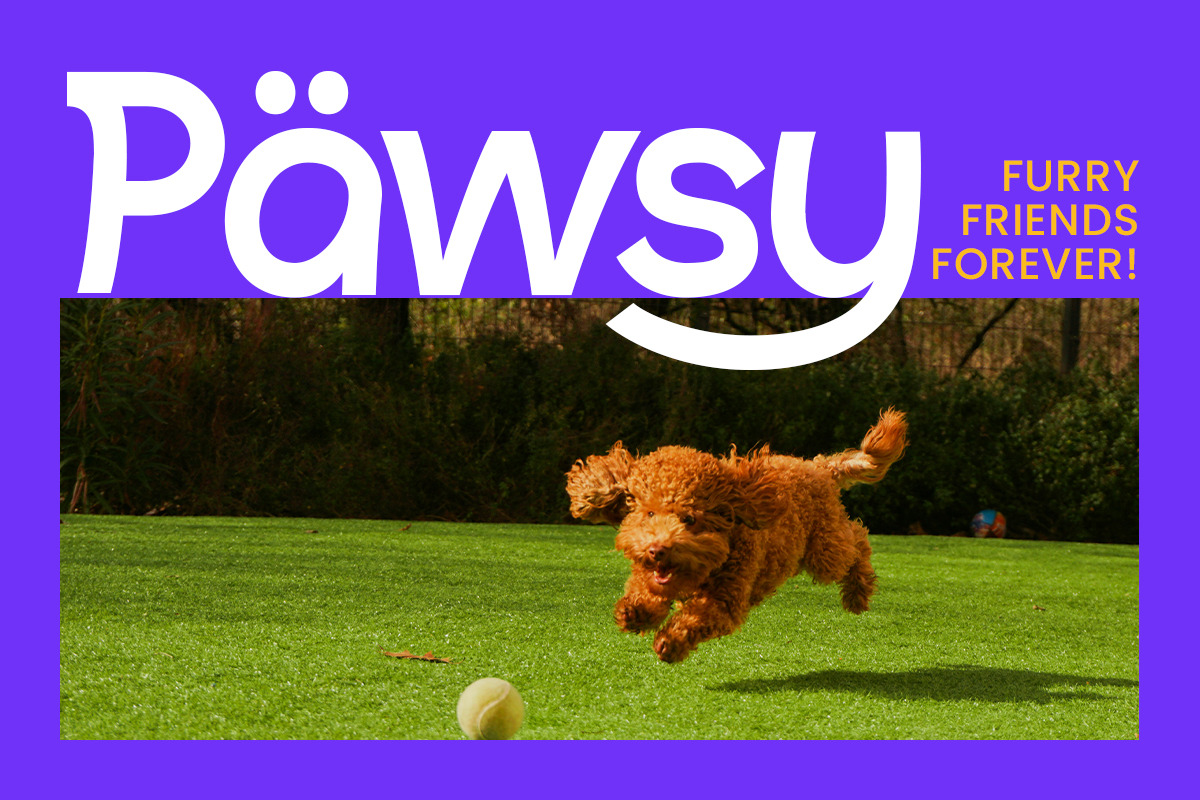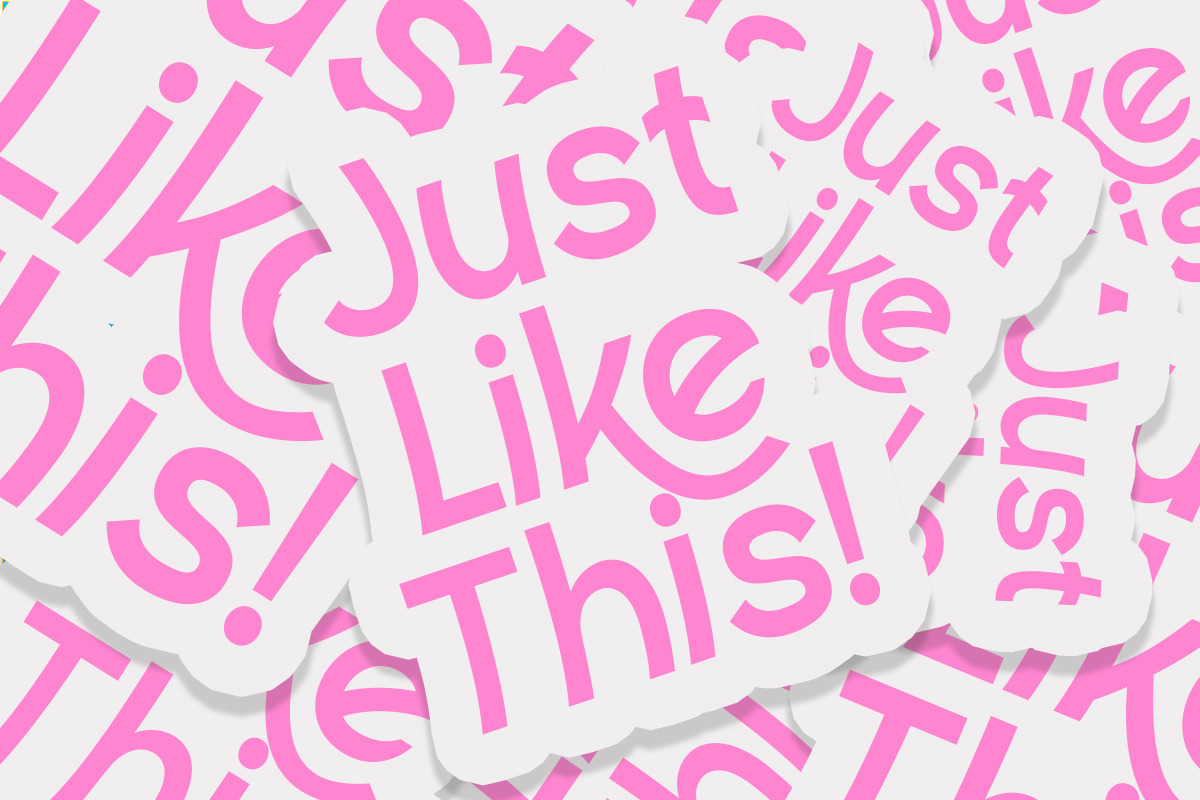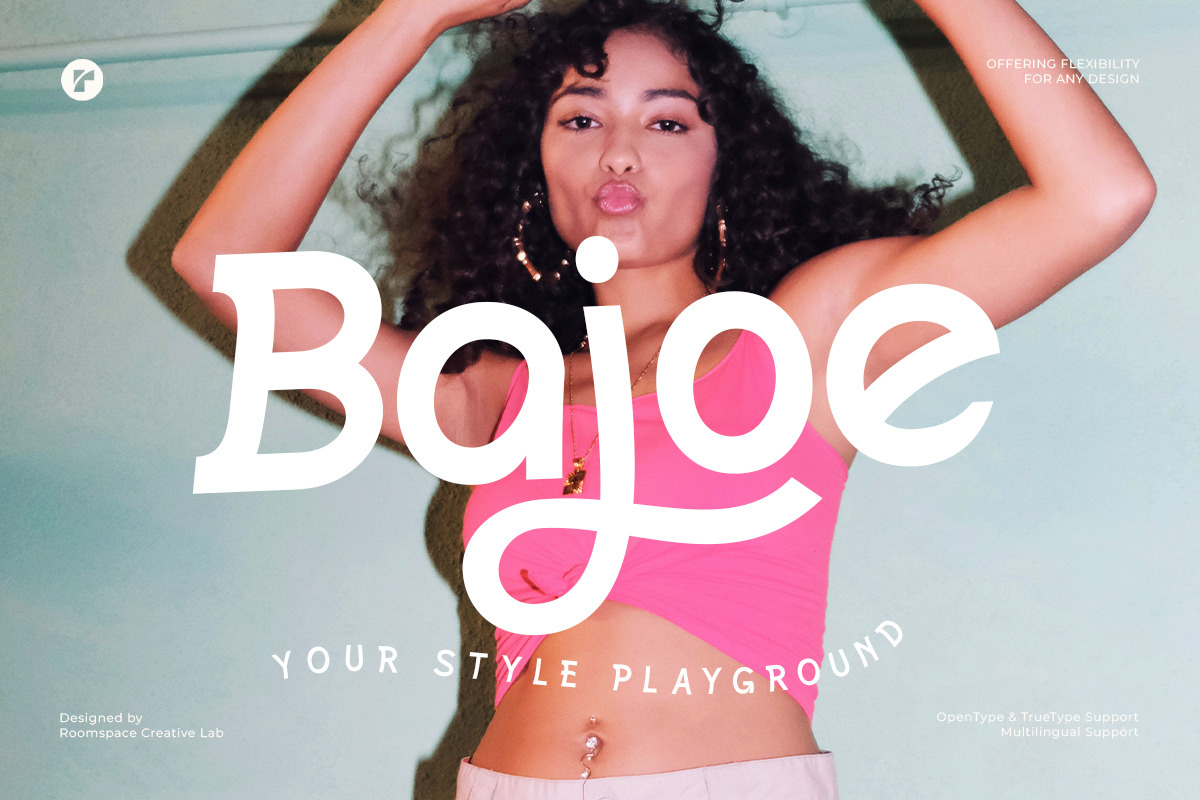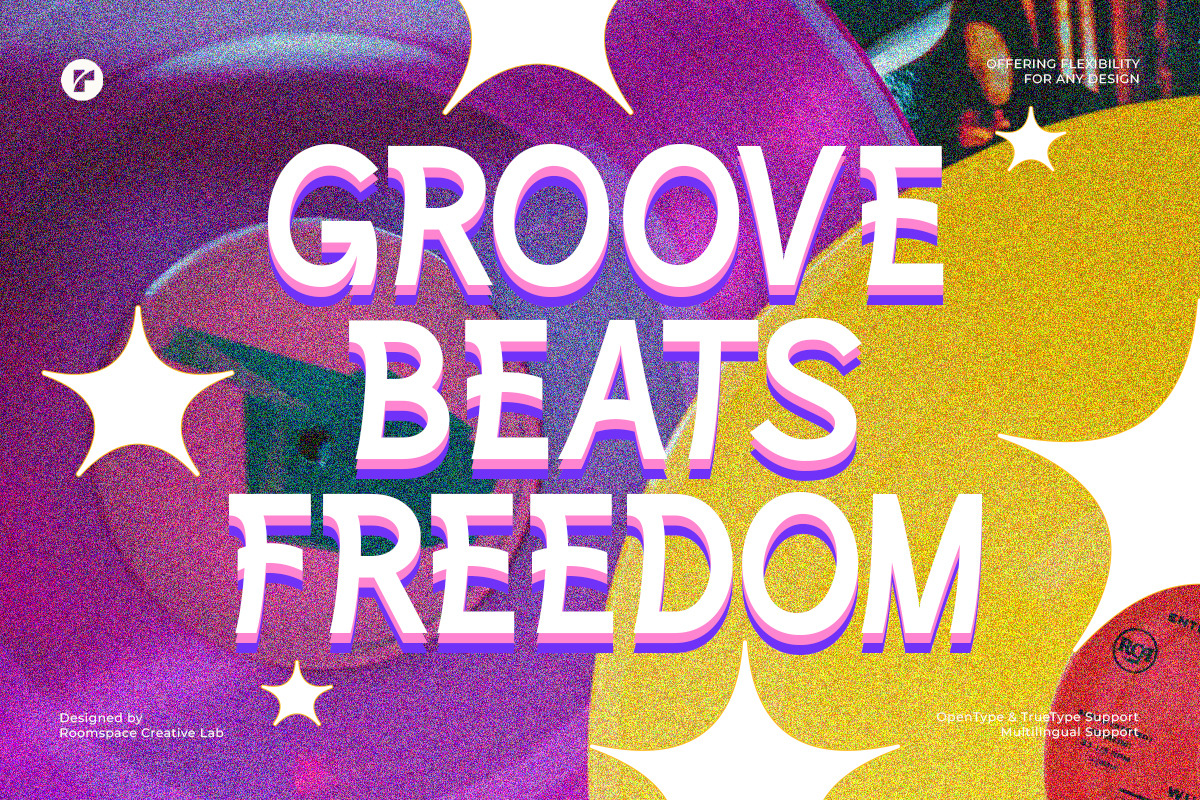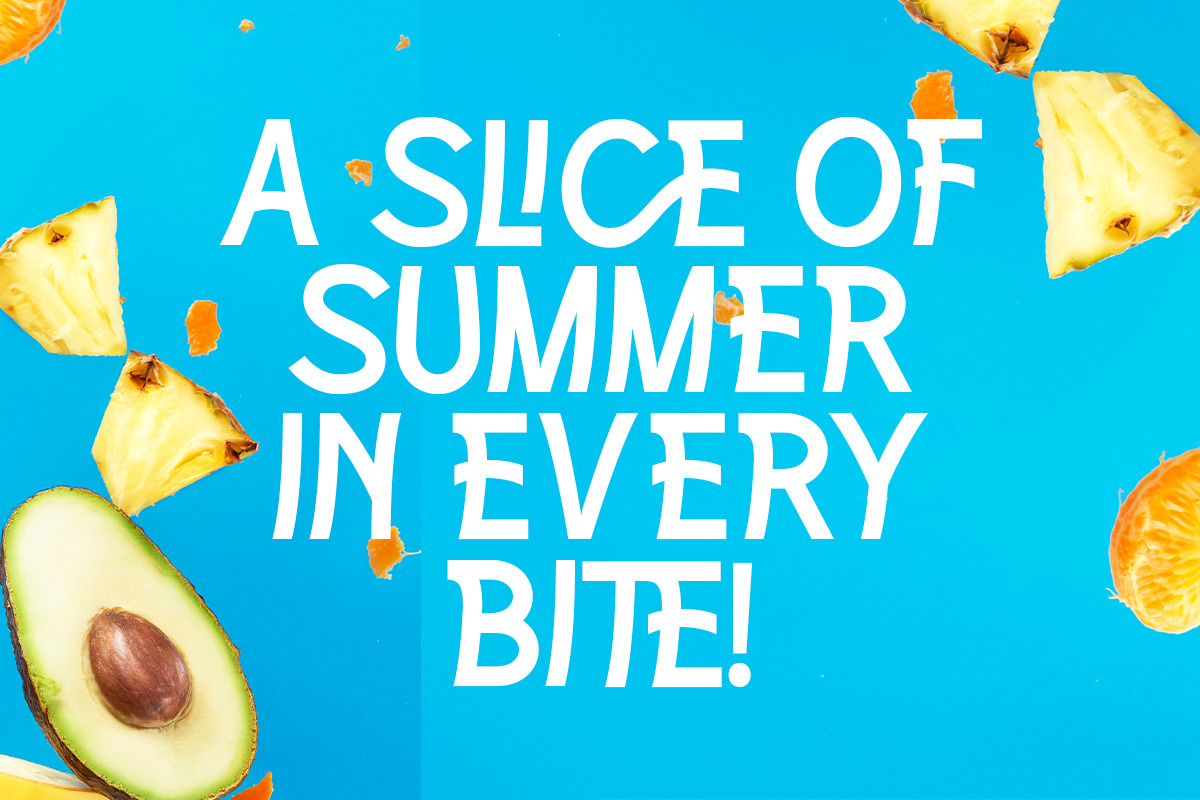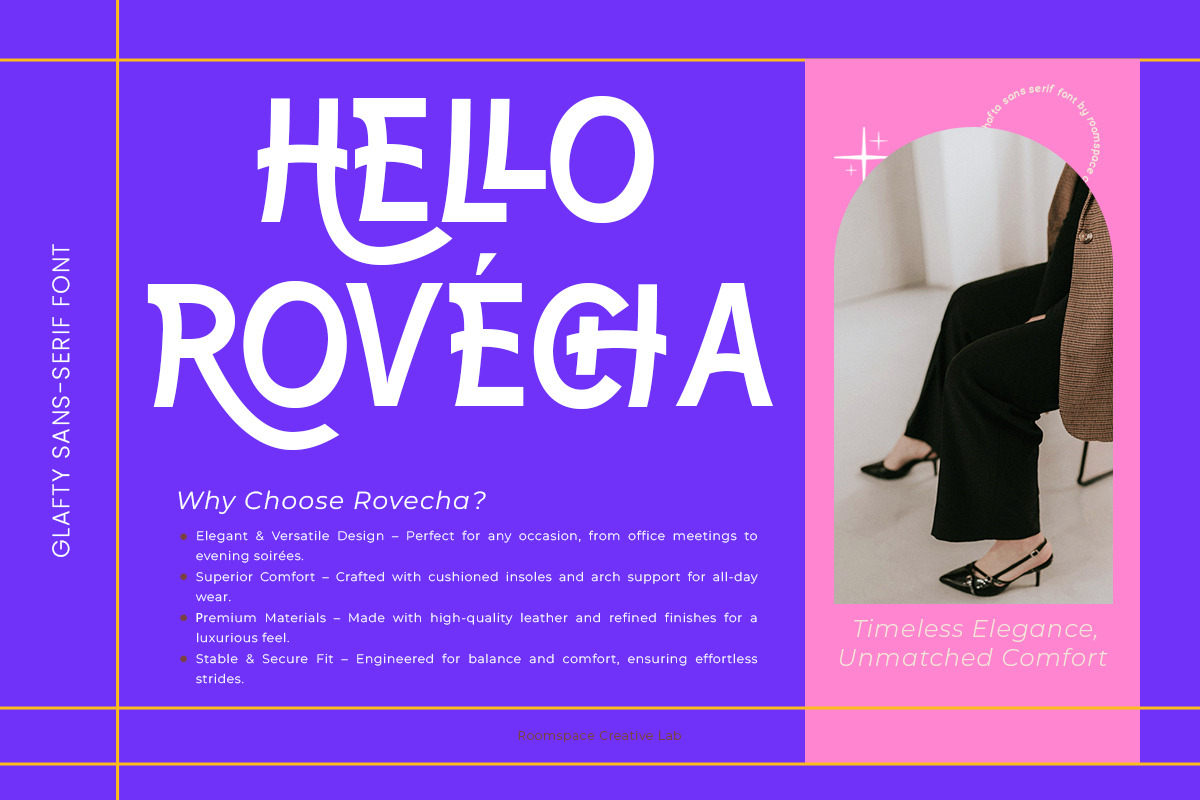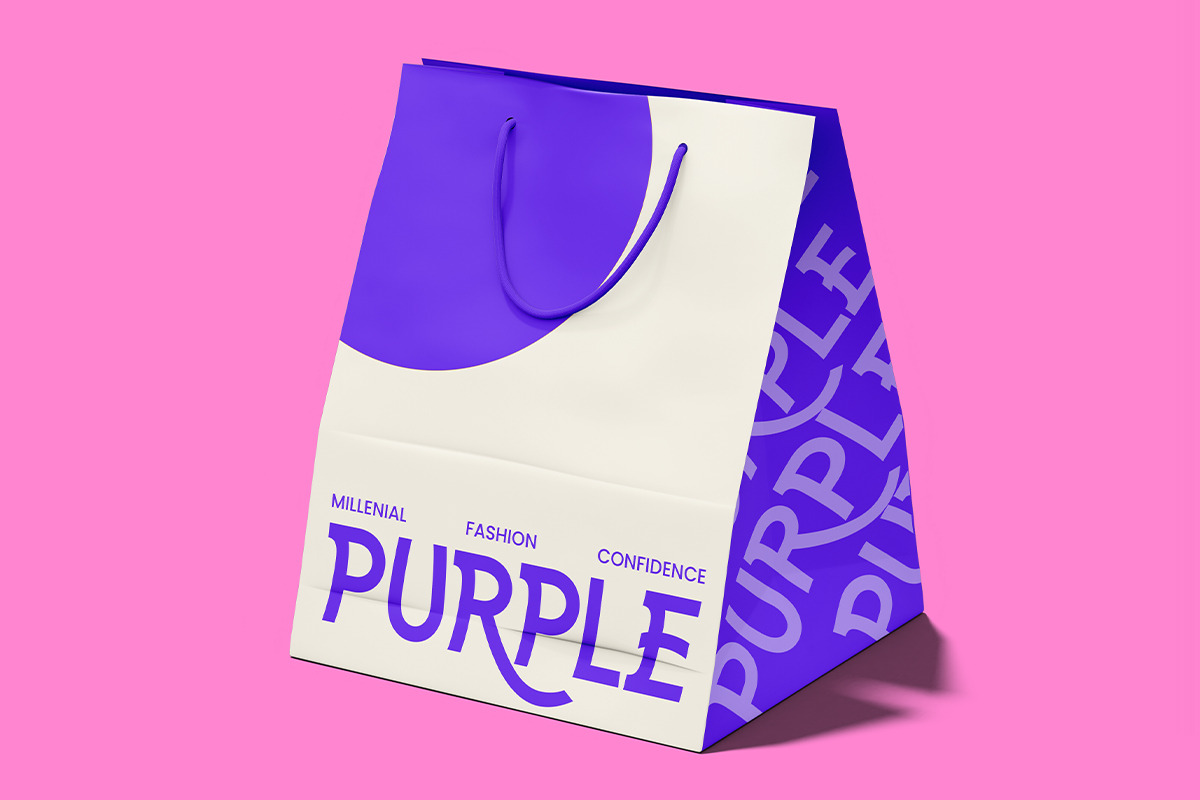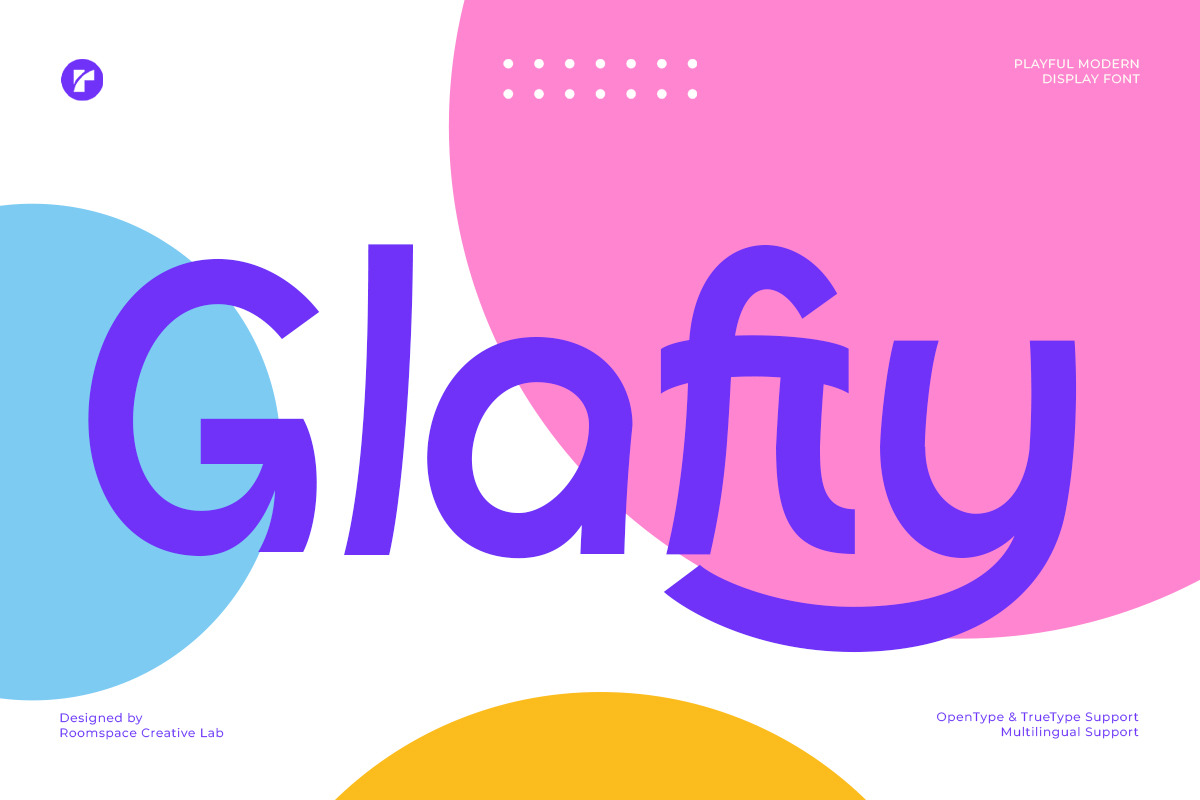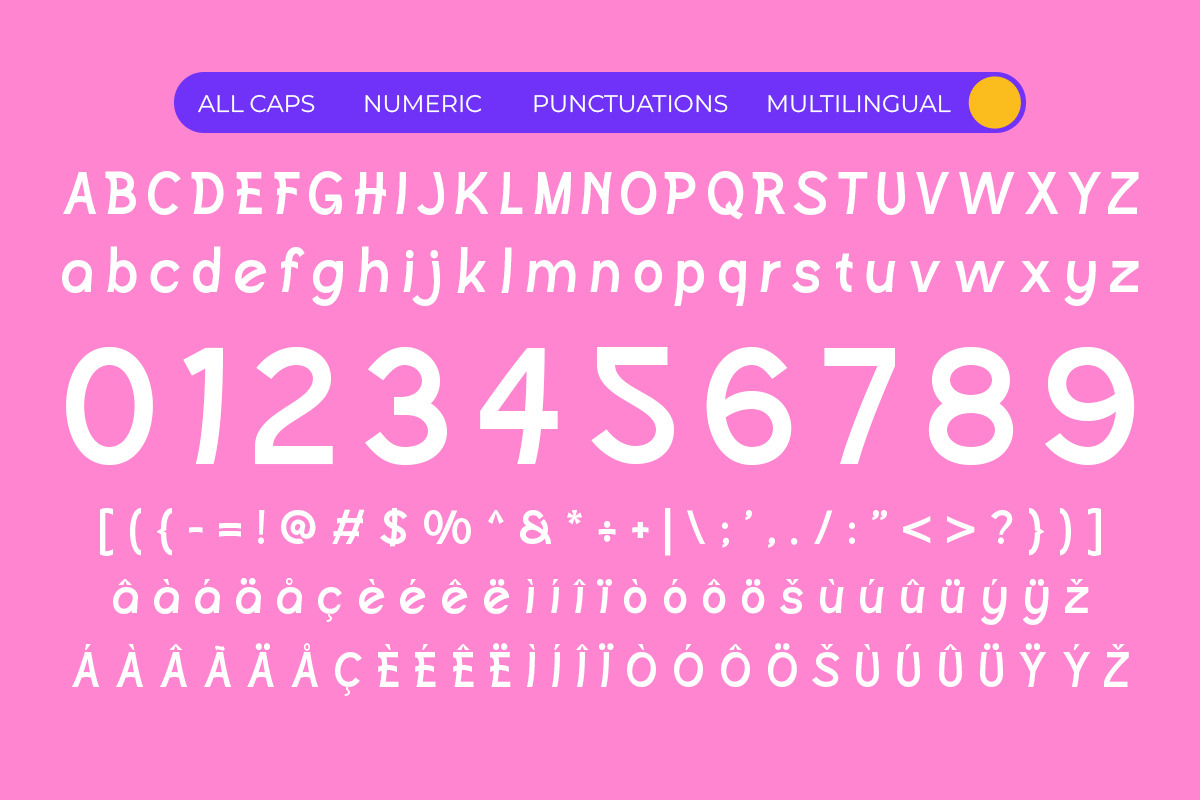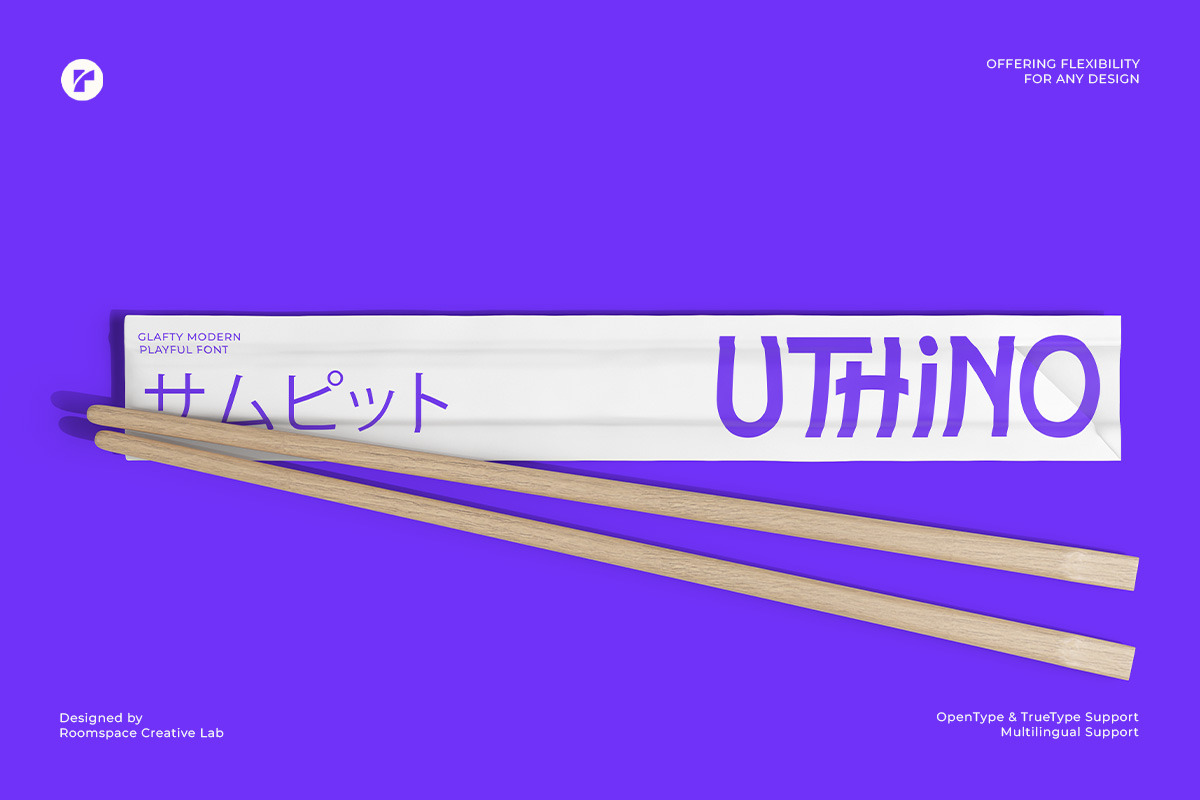
Glafty - Sleek Modern Playful Font
Glafty! A playful and modern sans-serif display decorative font designed to add joy and personality to your creative projects. With bold curves and a cheerful vibe, Glafty brings a perfect blend of fun and style to your designs.
Glafty features smooth, rounded letterforms with a lively character—perfect for making your projects pop! It includes both uppercase and lowercase styles, giving you plenty of freedom to mix and match for a unique look. Plus, with multilingual support, your designs can reach audiences all around the world.
Whether you’re creating logos, social media graphics, posters, playful branding, packaging, or greeting cards, Glafty has your back. Its modern and friendly style makes it a great choice for projects that need a fresh and youthful vibe.